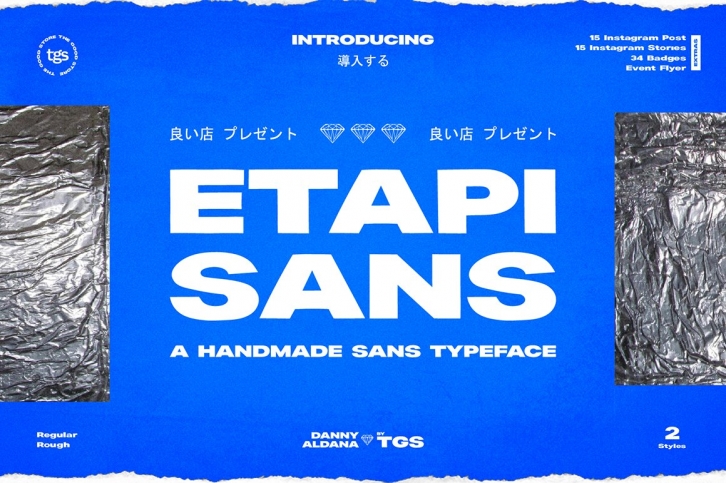
A modern handmade sans display typeface that comes in Regular and Rough styles.
Inspired by underground fashion trends and a hypebeast culture, the feel of modern design that lives in the Etapi Sans.
Etapi Sans is a Sans Display Typeface